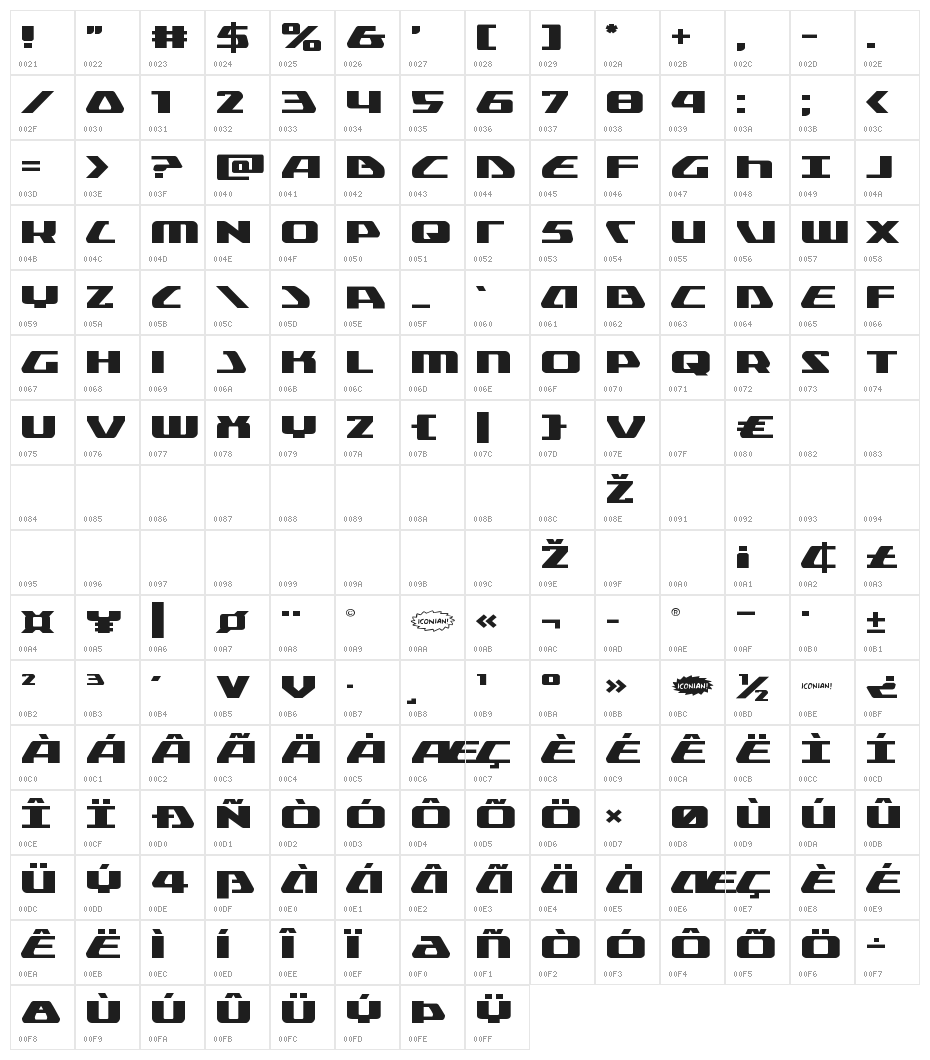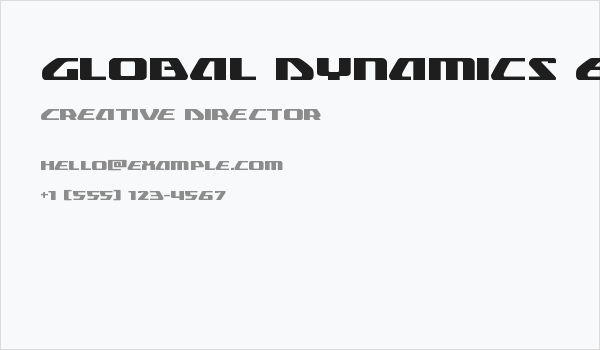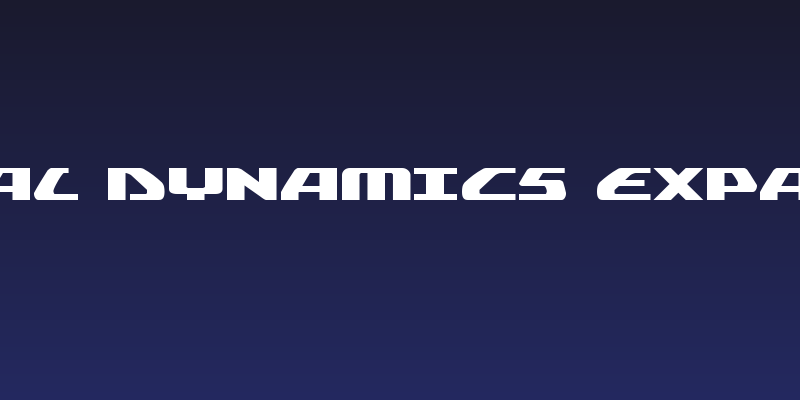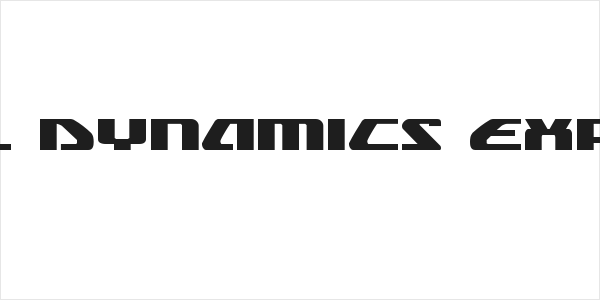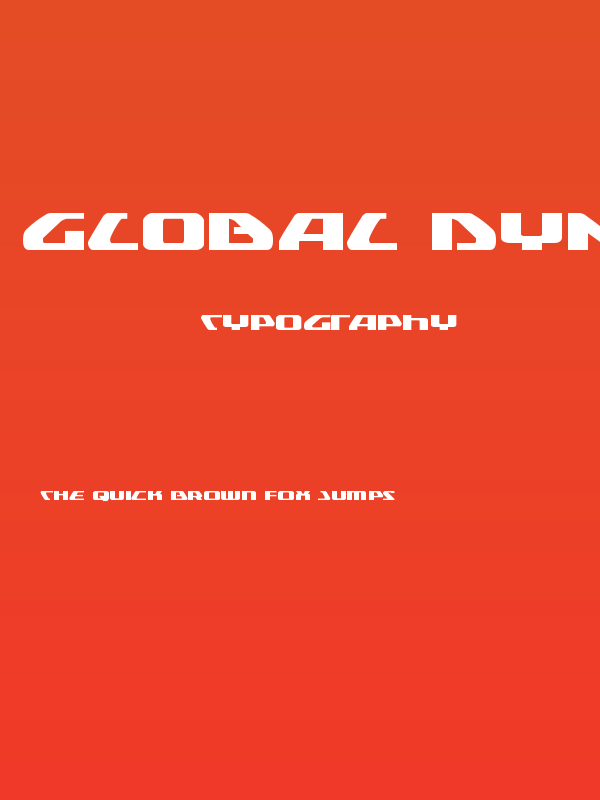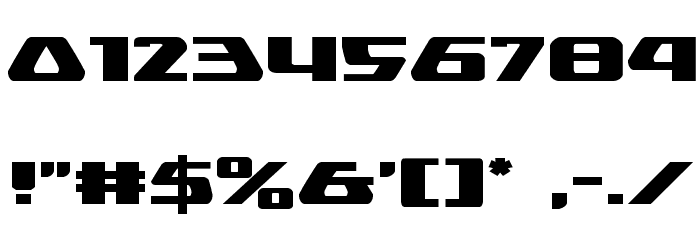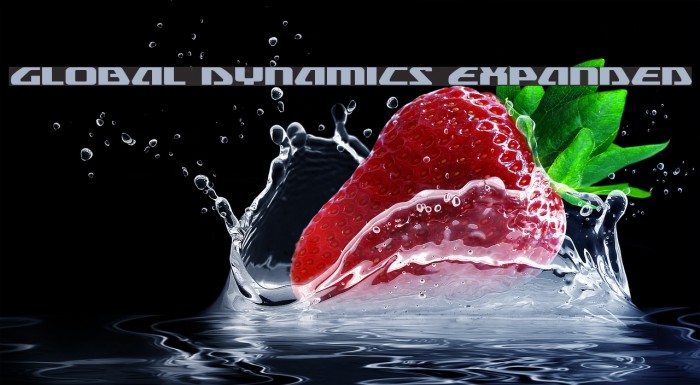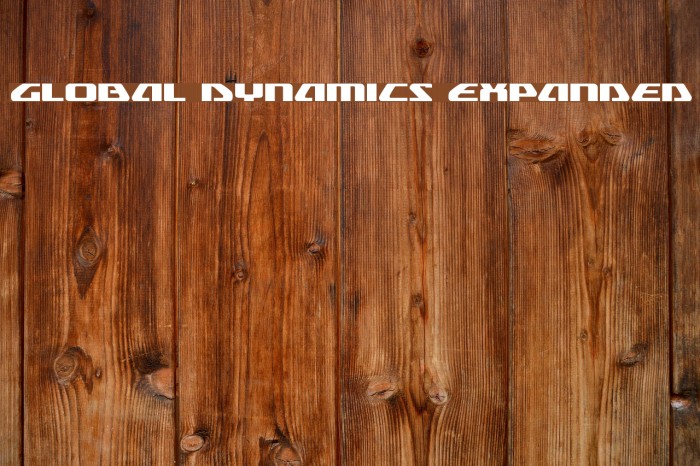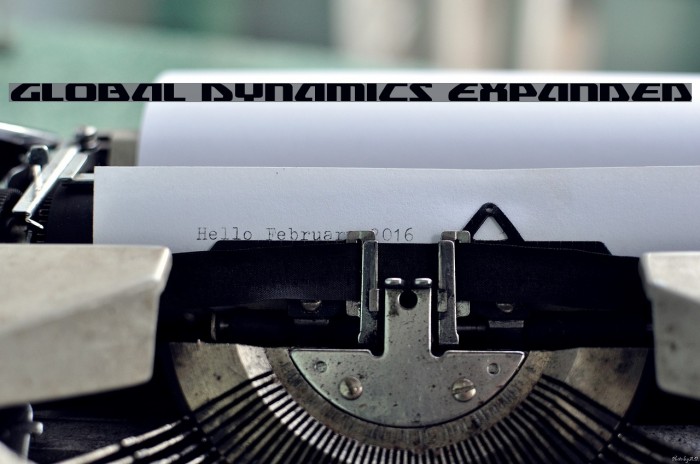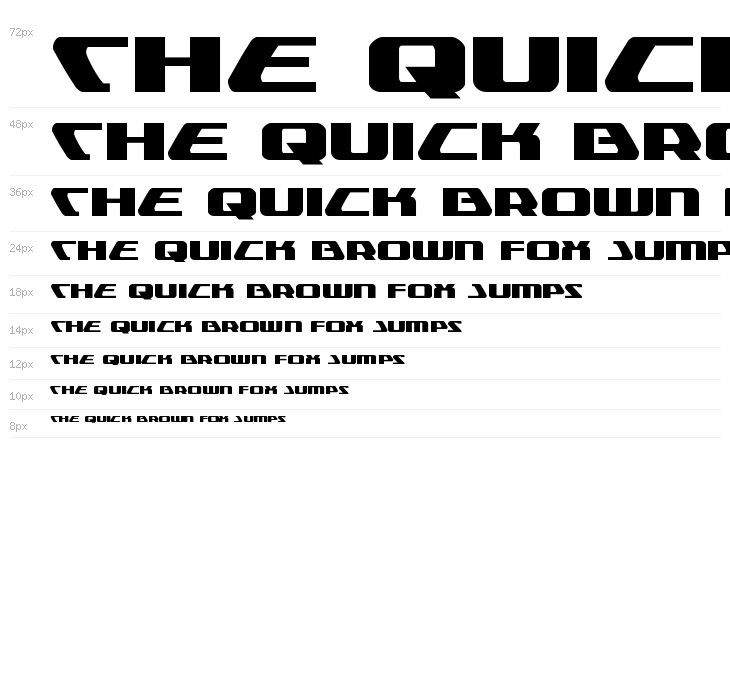
Global Dynamics Expanded Font
Global Dynamics Expanded Description
This font features a bold, futuristic design with a strong geometric influence. The characters are wide and angular, with sharp edges and a distinct, modern aesthetic. The uppercase and lowercase letters maintain a consistent style, emphasizing a sense of uniformity and precision. Numbers and special characters are designed to match the boldness and angularity of the alphabet, making the font suitable for impactful and attention-grabbing text. The overall appearance is sleek and dynamic, ideal for projects that require a contemporary and technological feel.
| Proposed Projects | Ideal for technology branding, sci-fi posters, video game titles, and modern advertising. |